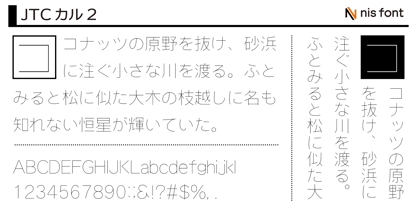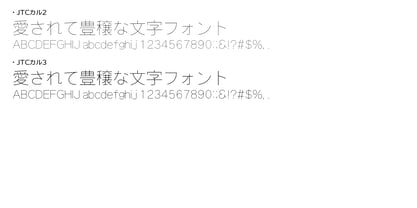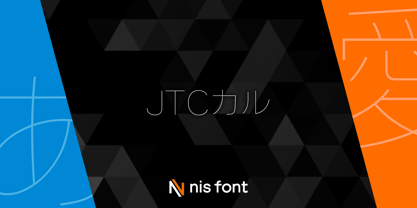
OT-NIS_CUL
by NIS Fonts
This is a family of ultra-thin fonts. Even when placed over photos or designs, it doesn't overpower or obscure the background.